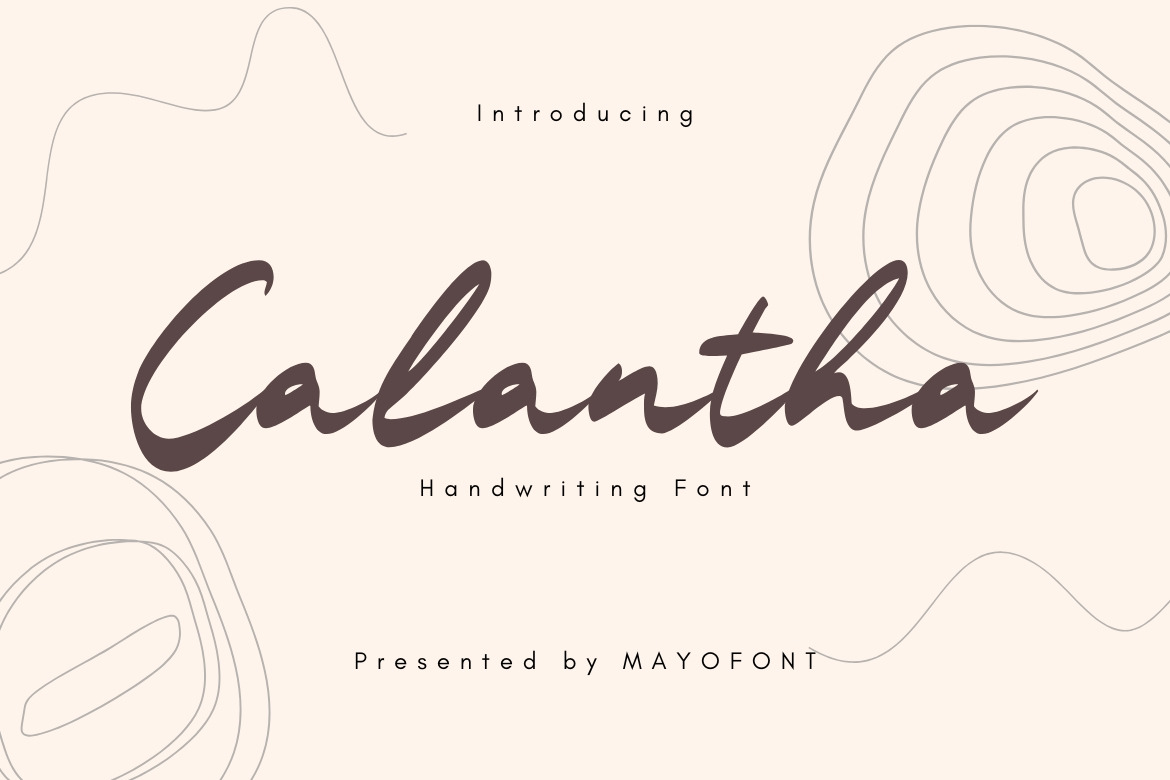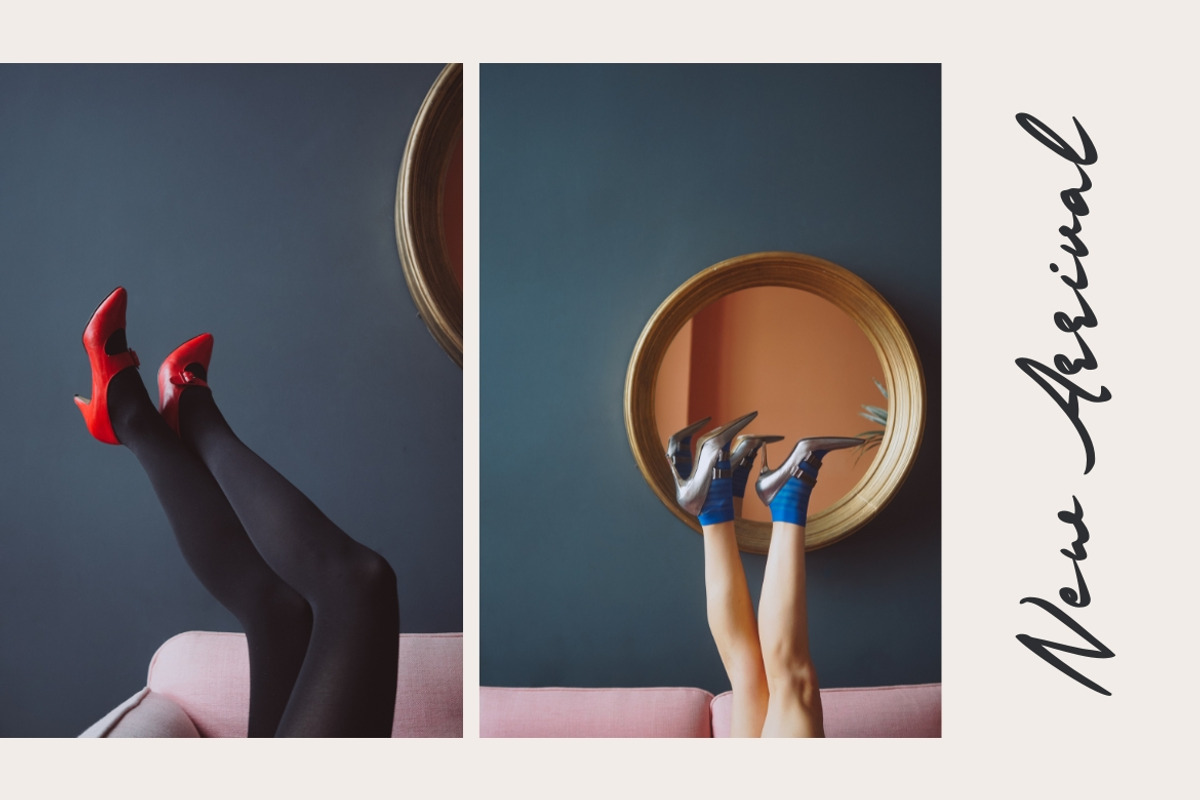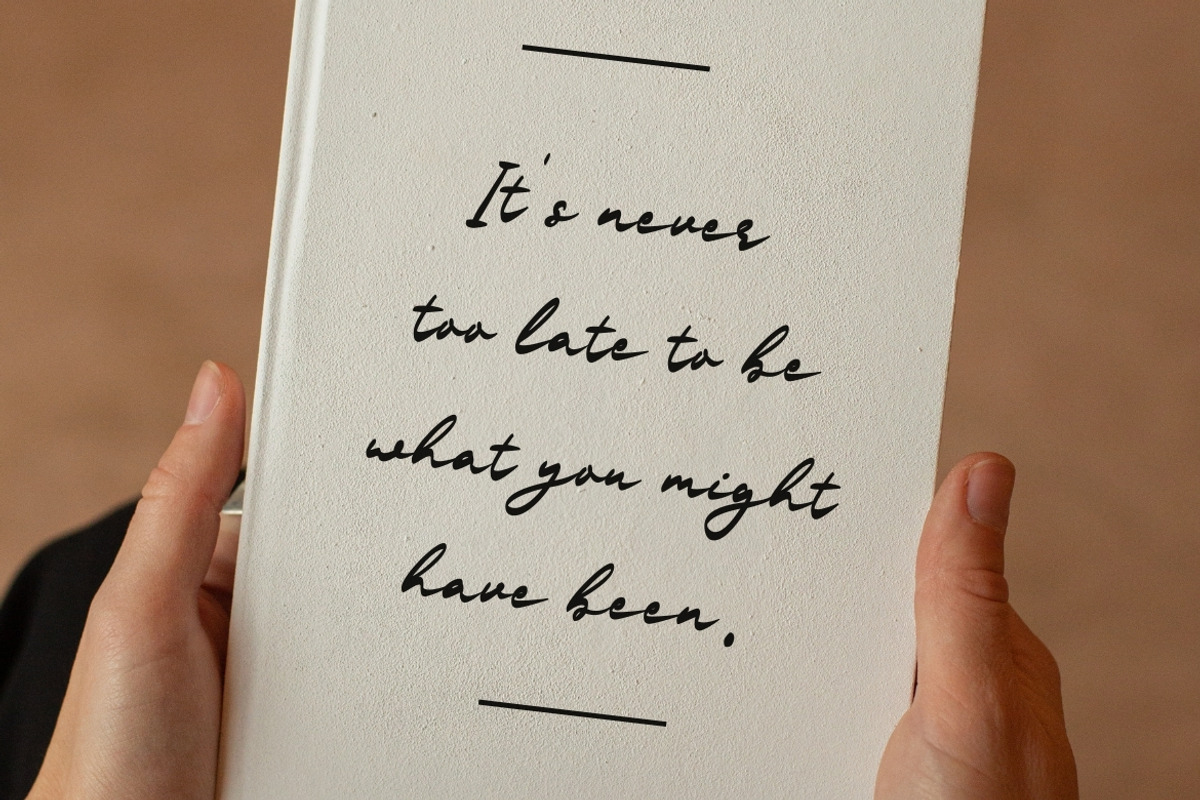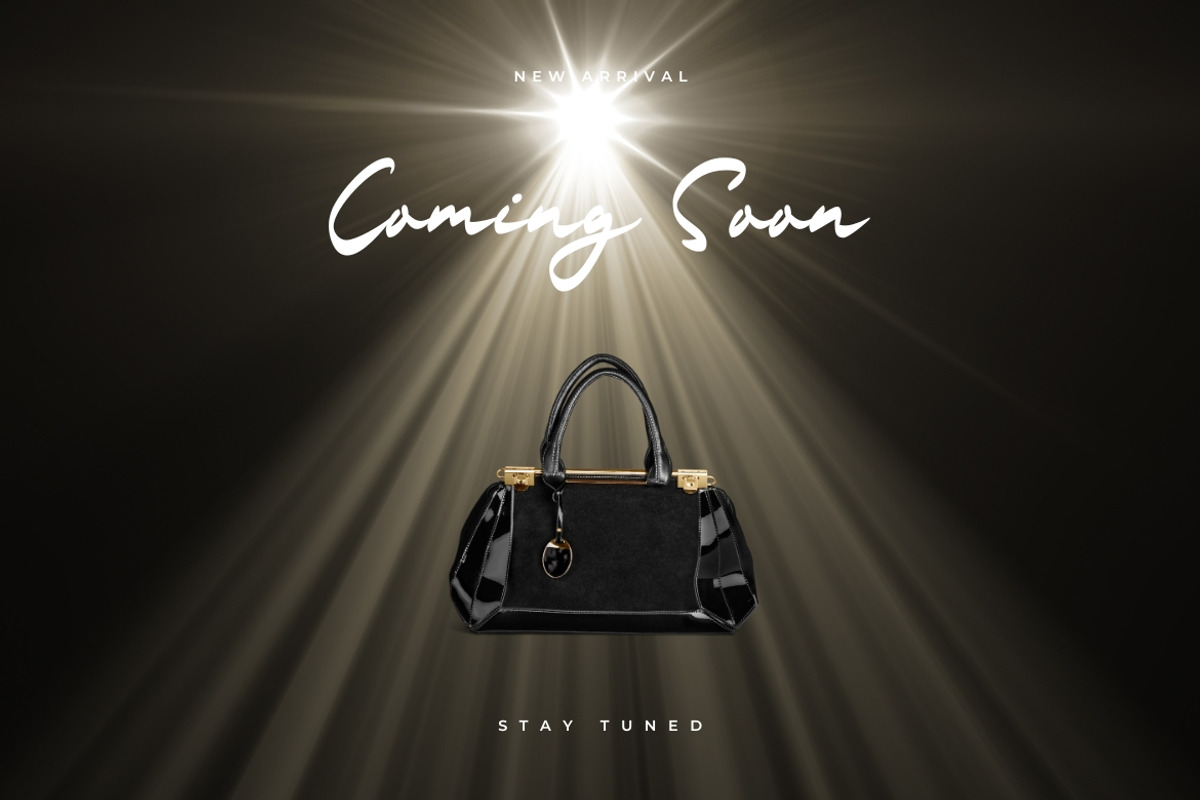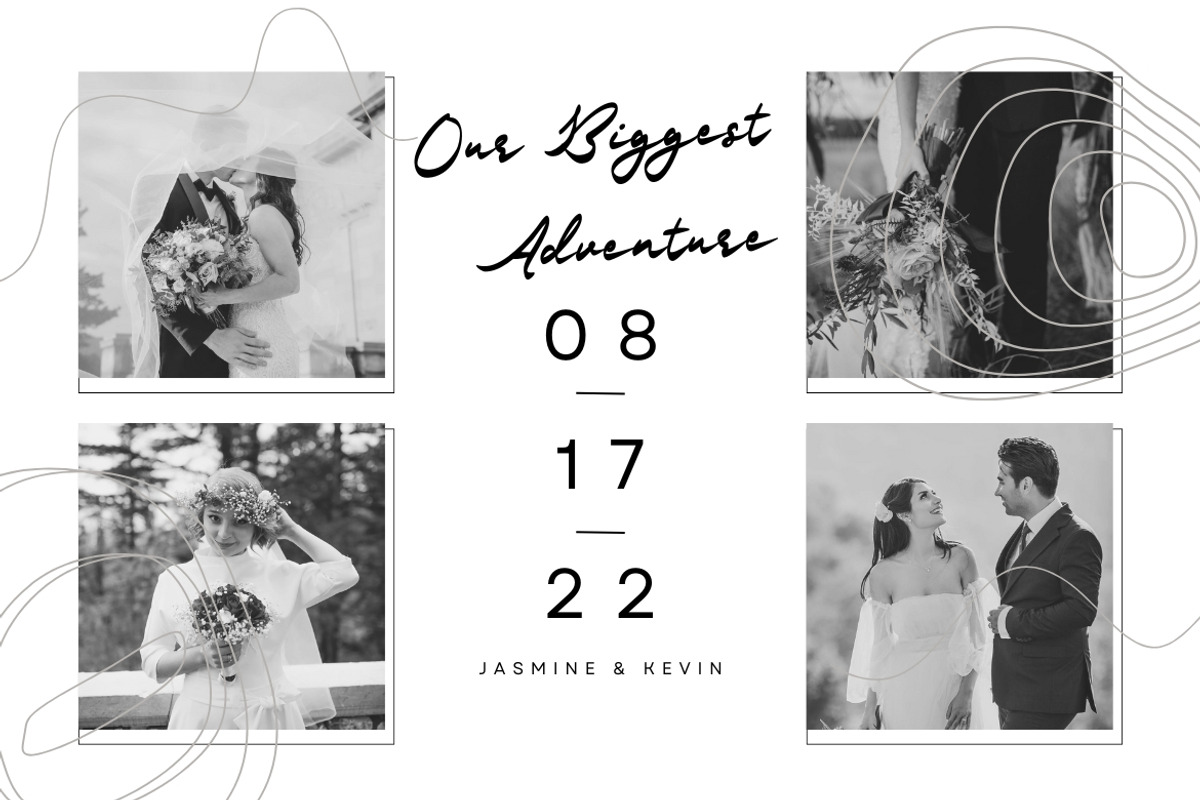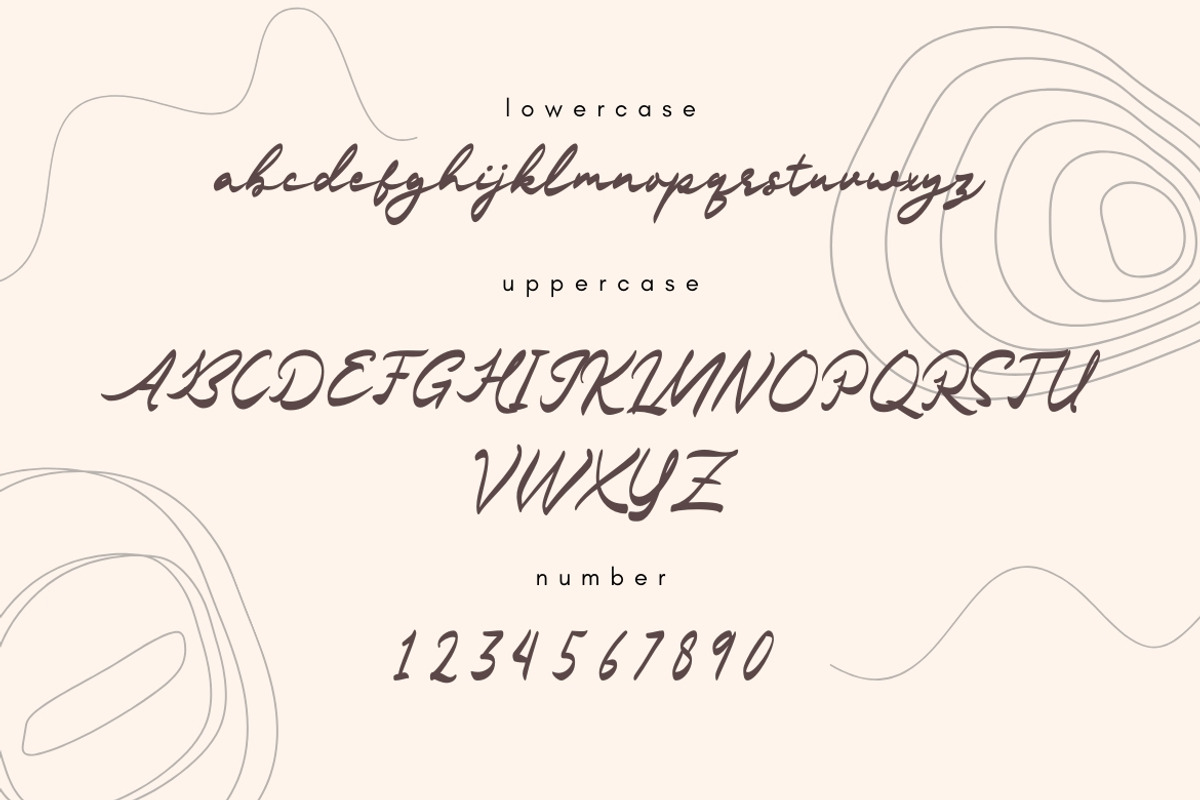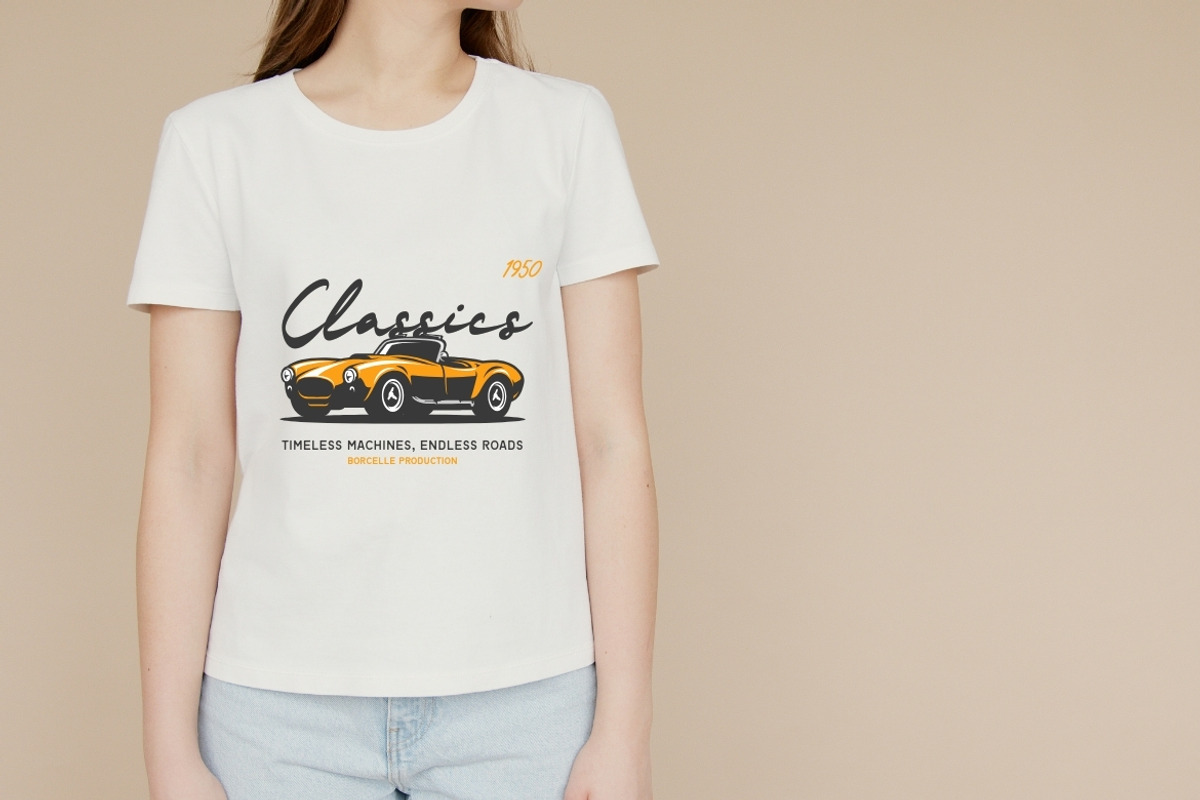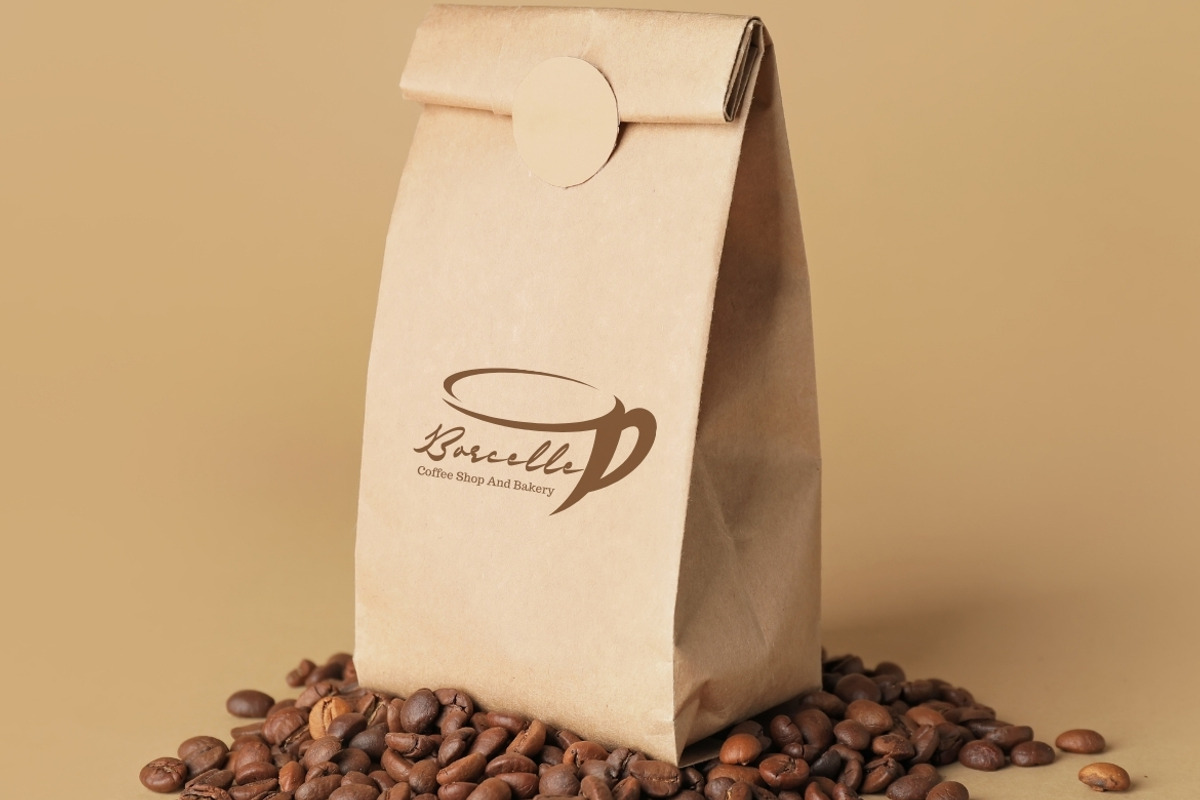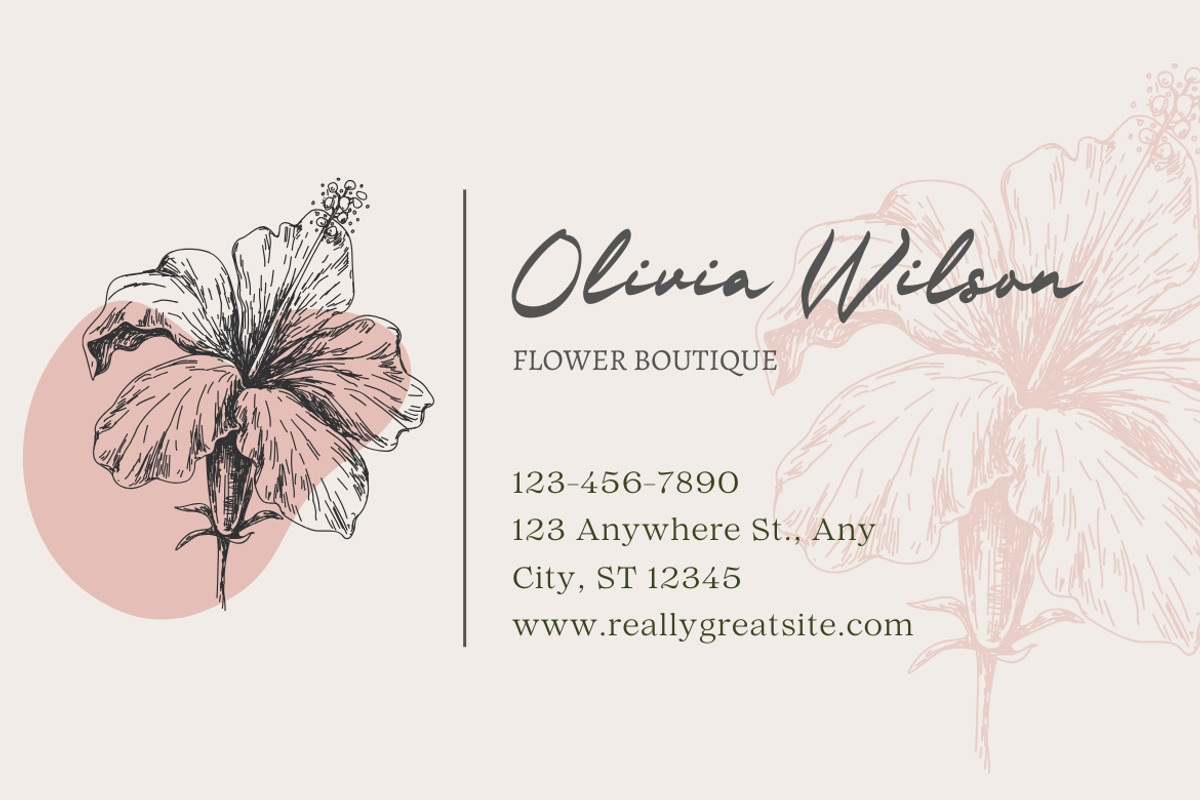
Calantha Handwritten Font
Calantha Handwritten is a modern and stylish script font that beautifully captures the essence of natural handwriting. With its smooth strokes and elegant curves, this font exudes warmth and sophistication, making it perfect for branding, invitations, social media, and creative projects. Calantha Handwritten combines a personal touch with a contemporary aesthetic, adding charm and authenticity to any design.